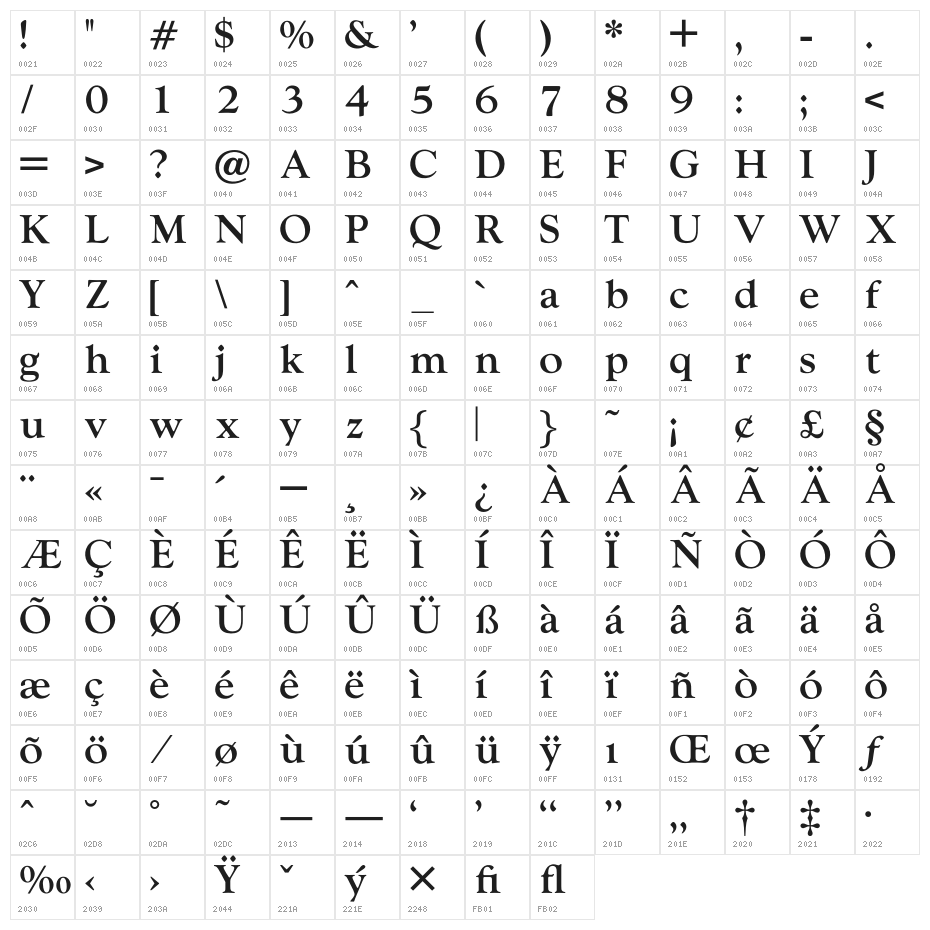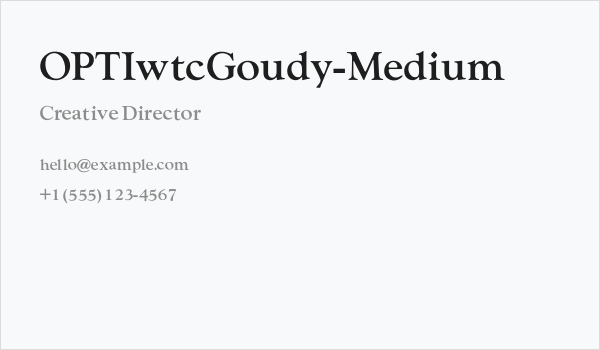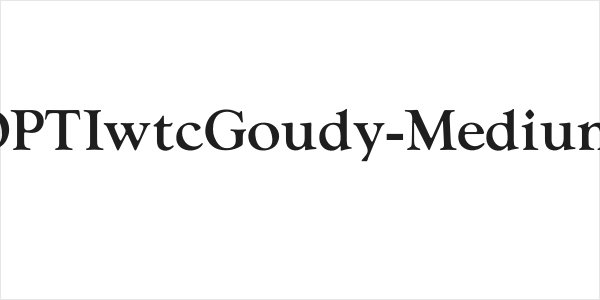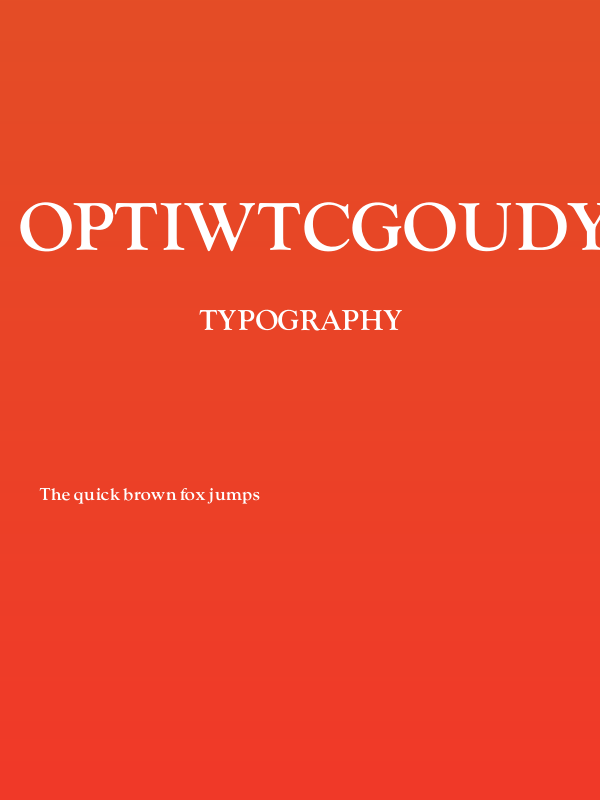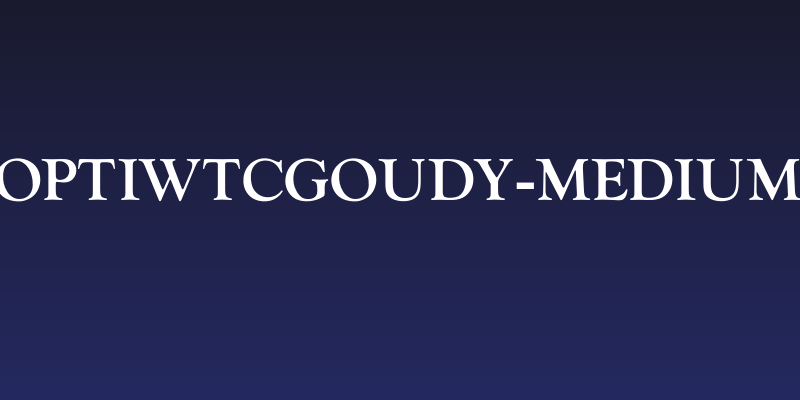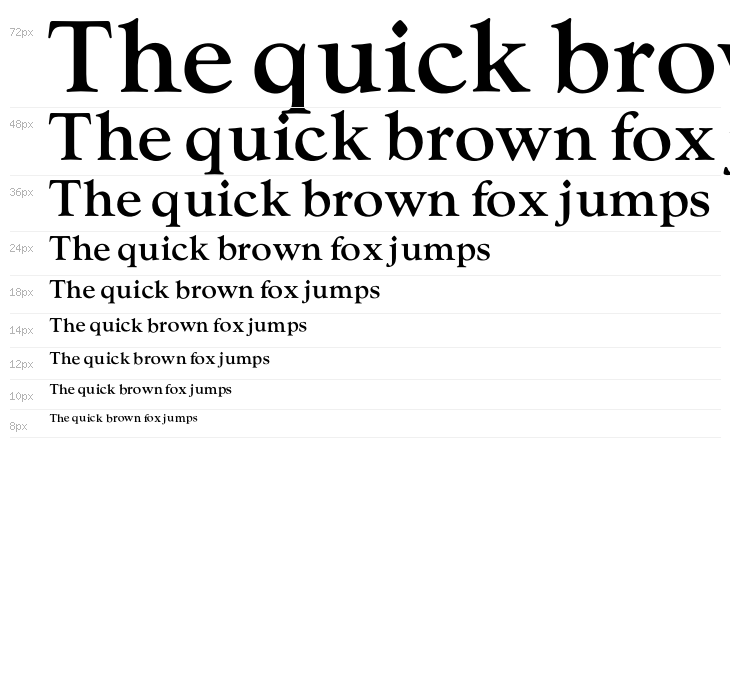
OPTIwtcGoudy-Medium Font
OPTIwtcGoudy-Medium Description
This typeface exhibits a classic serif style with elegant, flowing lines and moderate contrast between thick and thin strokes. The serifs are well-defined and slightly bracketed, contributing to a traditional and sophisticated appearance. The uppercase letters are bold and commanding, while the lowercase letters maintain a balanced and readable form. The numerals are proportionate and consistent with the overall design, ensuring clarity and legibility. Special characters are crafted with attention to detail, enhancing the font's versatility for various applications.
| Use Case | Body text, Headlines, Editorial design |
| Proposed Projects | Ideal for book typesetting, formal invitations, branding for luxury products, and editorial design. |